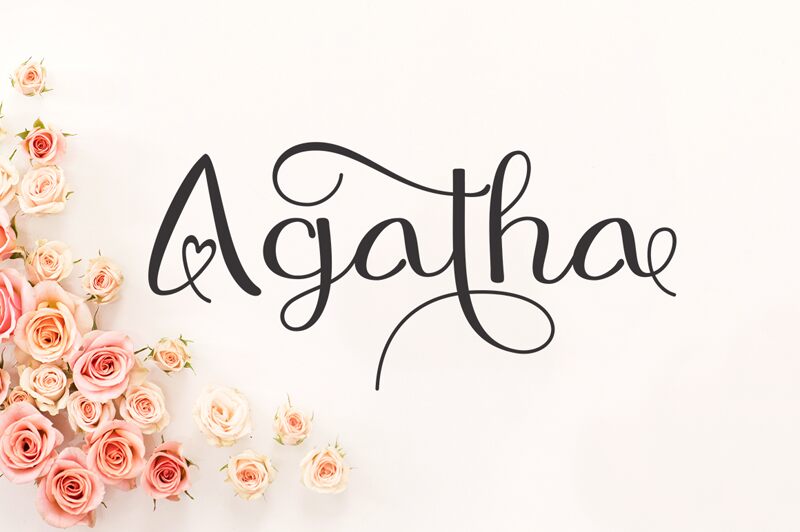
Agatha, a mesmerizing calligraphy font designed by Aqeela, exudes an air of elegance and grace. Its semi-light weight adds a delicate touch to any project, making it ideal for invitations, greeting cards or wedding stationery. With its beautifully crafted strokes and flowing curves, Agatha brings a touch of sophistication to branding materials and logos. This versatile font is also perfect for creating stunning typography art pieces or adding a touch of class to editorial designs. Let Agatha's enchanting charm sweep through your projects and leave a lasting impression on your audience.
Agatha